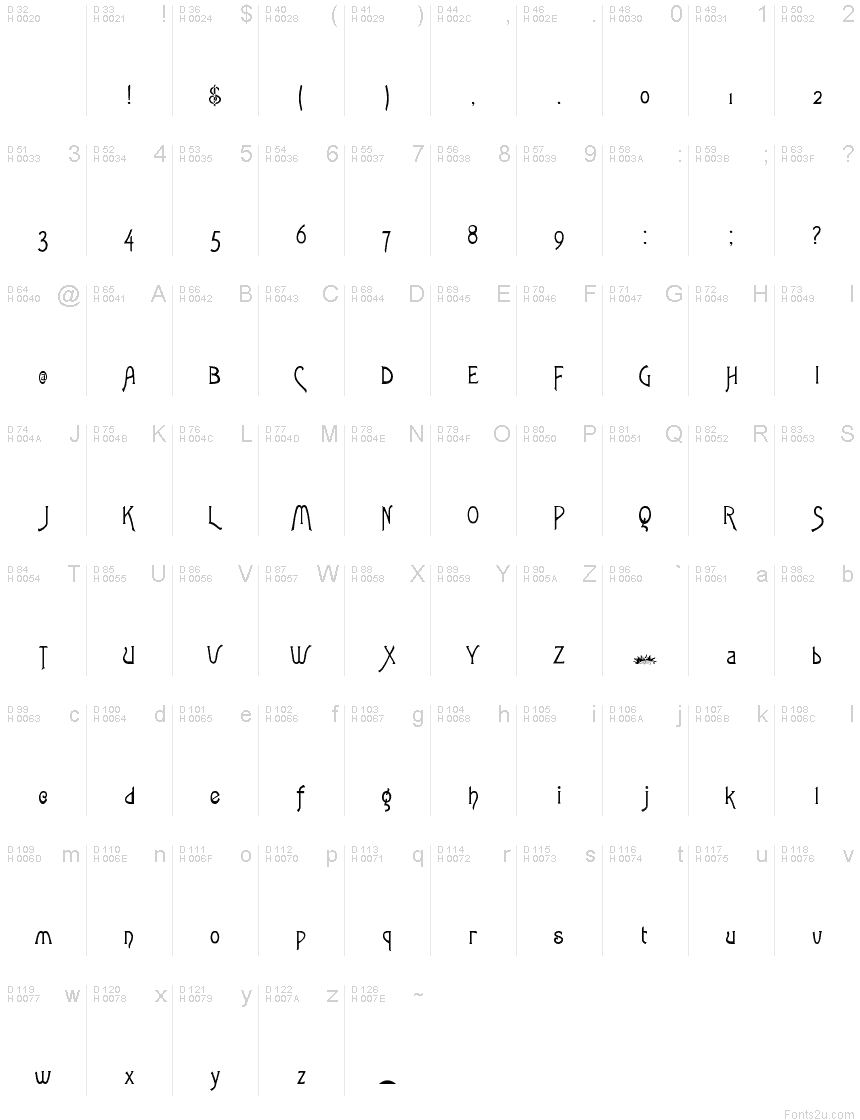
RSToulouseLautrec
RS Toulouse Lautrec, converted by Reasonable Solutions, is a free Art Nouveau display font with the lanky, poster-bred flair of fin-de-siecle lettering. The letters mix tall, narrow forms with sudden curls and tapering points, so the whole font feels theatrical, offbeat, and a little bohemian rather than neatly refined.
It works well for cabaret posters, vintage packaging, book covers, cafe branding, and title cards where a period mood matters more than neutrality. As a free font, it is especially convincing in short headlines, initials, and logo-style wordmarks, because those looping descenders and sharp vertical accents give even a few letters a strong Toulouse-Lautrec-era voice.